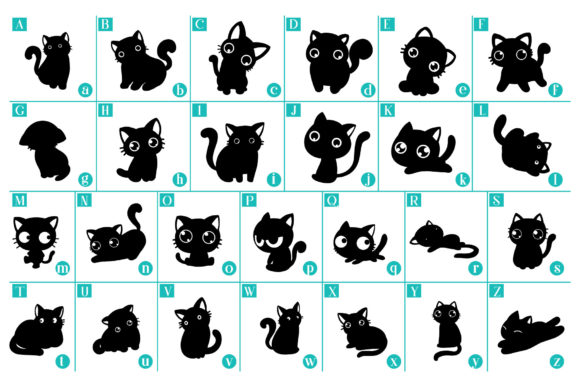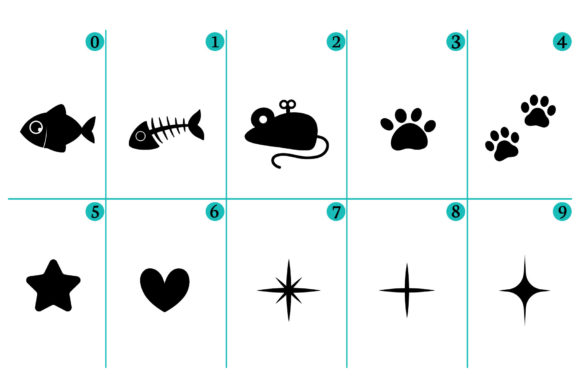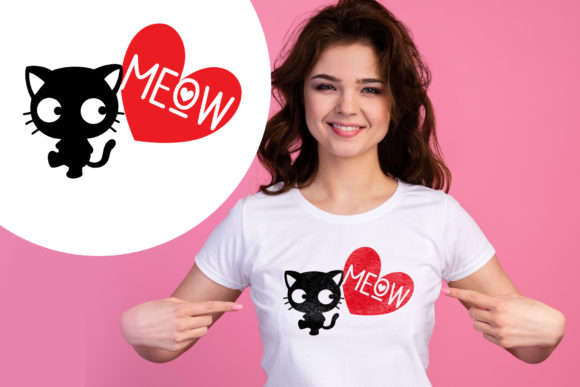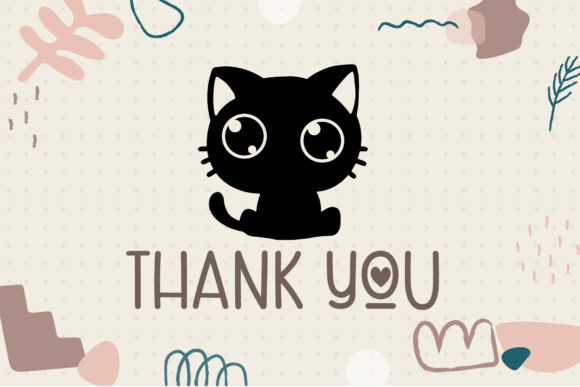
Cute Cat Doodles Font: The Purrfect Addition to Your Design Arsenal
Are you tired of using the same old fonts in your designs? Look no further! Introducing Cute Cat Doodles, a uniquely designed dingbats font that’s sure to bring a smile to your face. This adorable font is not only cute but also incredibly versatile, making it suitable for a wide range of design projects. Whether you’re a seasoned designer or a crafty DIY enthusiast, Cute Cat Doodles is about to become your new favorite go-to font.
What is Cute Cat Doodles Font?
Cute Cat Doodles is a dingbats font that features an array of whimsical cat illustrations, each one meticulously designed to bring a touch of playfulness to your designs. From cute cat faces to adorable cat silhouettes, this font has it all. The best part? Each character is carefully crafted to ensure that they’re easily recognizable and usable in a variety of contexts.
What Makes Cute Cat Doodles Font So Special?
So, what sets Cute Cat Doodles apart from other fonts out there? Here are just a few reasons why this font is about to become your new obsession:
- Unbelievably Versatile: Cute Cat Doodles can be used in a multitude of design projects, from digital designs and presentations to crafts and greeting cards. The possibilities are endless!
- Cute and Playful: Let’s face it – cats are cute, and this font takes that cuteness to the next level. Each character is designed to bring a smile to your face and make your designs more engaging.
- Easily Customizable: Whether you’re using Cute Cat Doodles for personal or commercial projects, this font is incredibly easy to customize. Simply pair it with your favorite colors and design elements to create something truly unique.
Use Cases for Cute Cat Doodles Font
So, how can you use Cute Cat Doodles in your designs? Here are just a few ideas to get you started:
- Crafts: Add a personal touch to your DIY crafts, such as scrapbooking, card making, and other paper crafts.
- Digital Design: Use Cute Cat Doodles in your digital designs, including social media graphics, blog posts, and website headers.
- Presentations: Make your presentations more engaging with Cute Cat Doodles. Perfect for educational or marketing presentations, this font is sure to capture your audience’s attention.
- Greeting Cards: Create adorable greeting cards for special occasions, such as birthdays, holidays, or just because.
Why Designers and Crafters Love Cute Cat Doodles Font
Designers and crafters alike are going crazy for Cute Cat Doodles, and it’s easy to see why. Here are just a few reasons why this font has become a favorite among creatives:
- Time-Saving: With Cute Cat Doodles, you can add a professional touch to your designs without spending hours creating custom illustrations.
- Consistency: This font provides a consistent look and feel across all your designs, making it perfect for branding and marketing projects.
- Fun and Engaging: Let’s not forget the most important thing – Cute Cat Doodles is just plain fun! Add a touch of whimsy to your designs and make them more engaging.